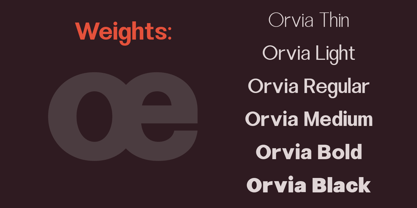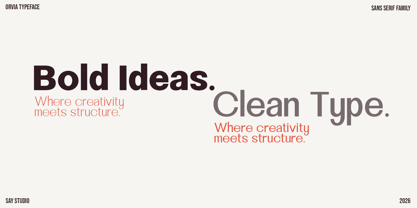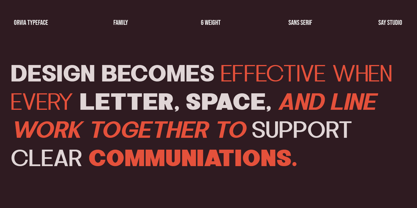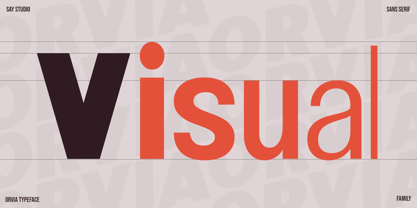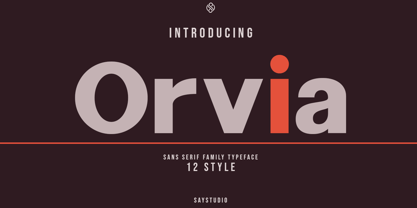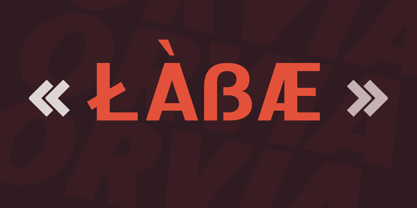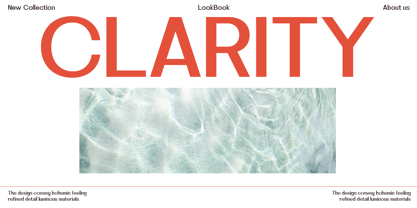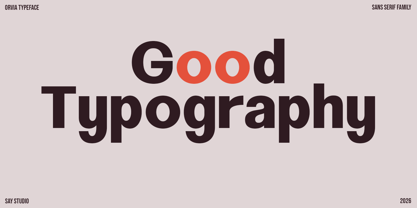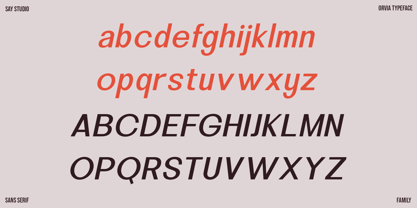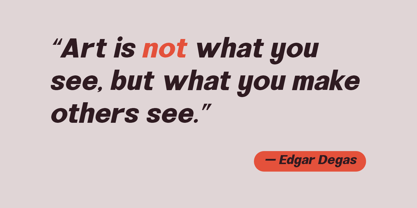
Orvia
The Orvia Font Family was designed by Mussyayin and published by Say Studio. Orvia contains 12 styles and family package options. More about this family
Orvia is a modern sans serif typeface family crafted to deliver clarity, balance, and contemporary elegance across all design projects. Featuring clean geometry and smooth proportions, Orvia provides a versatile visual voice that exudes professionalism, confidence, and timelessness, making it perfect for both corporate and creative applications. With a comprehensive family of 12 styles, Orvia offers flexibility for intricate layouts and a strong typographic hierarchy. From bold headlines and refined subheadings to clean body text, each style harmonizes to create cohesive and polished designs. Its neutral yet modern character allows Orvia to seamlessly adapt to branding systems, editorial layouts, user interfaces, and digital products. Designed for professionals who prioritize precision and usability, Orvia boasts balanced letterforms, consistent spacing, and exceptional readability, making it reliable for both print and screen. Whether you’re developing a brand identity, designing marketing materials, or creating modern web and app interfaces, Orvia provides a clear and professional typographic foundation. Timeless rather than trendy, Orvia is a dependable sans serif family that supports long-term visual identities while maintaining a fresh and contemporary feel. This font family is designed to elevate modern design with confidence and clarity. Thank You, Have a Good Day! Saystudio